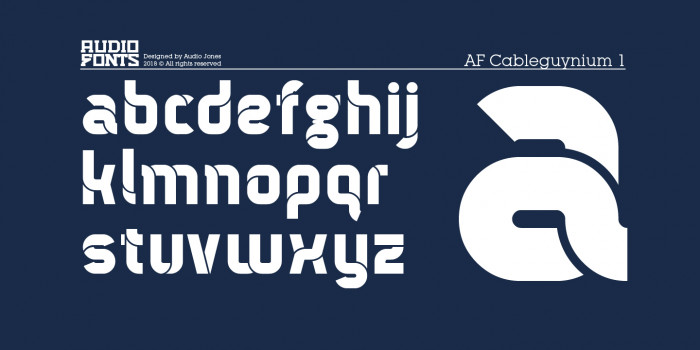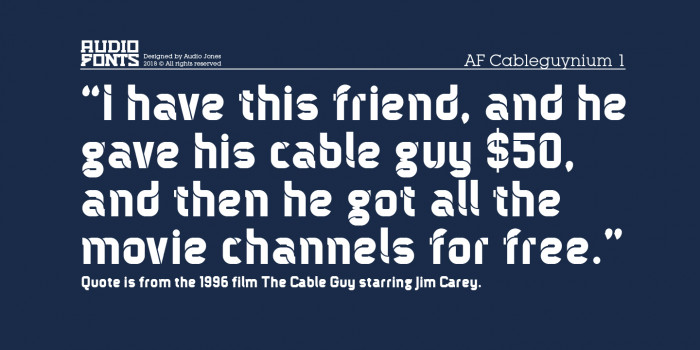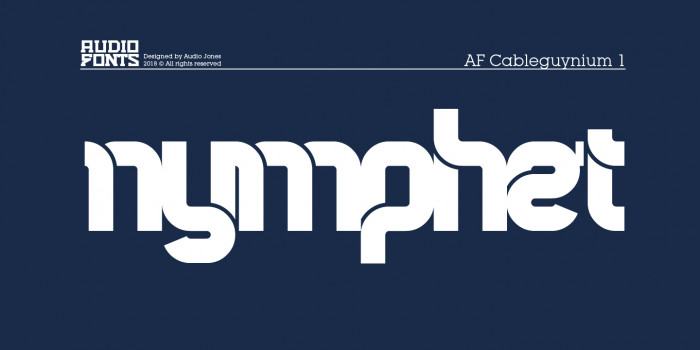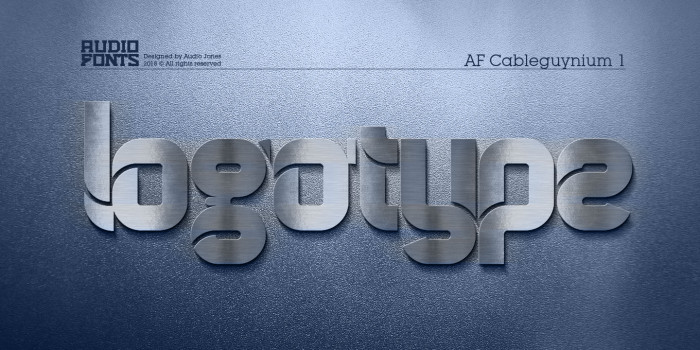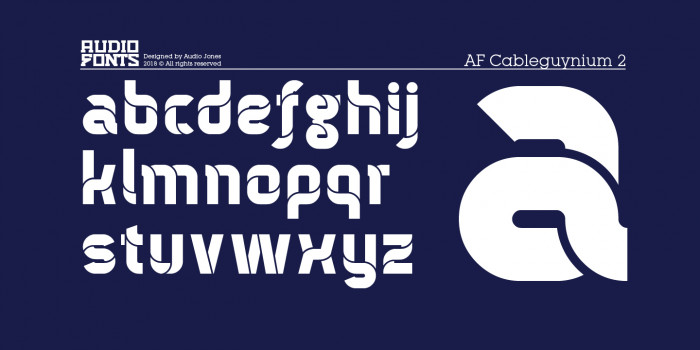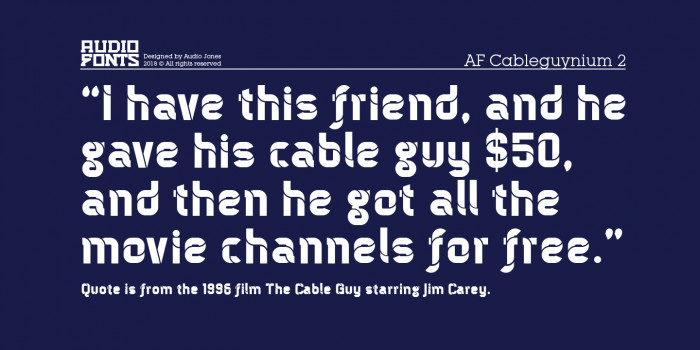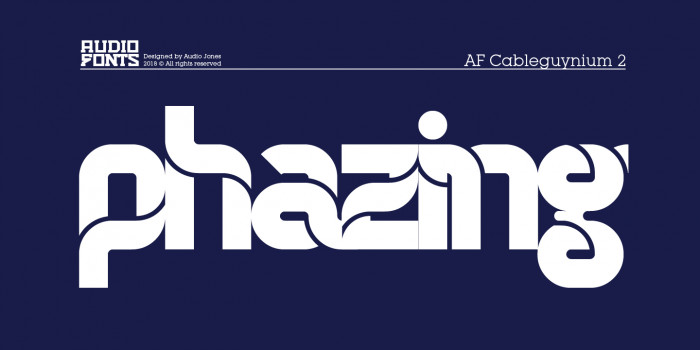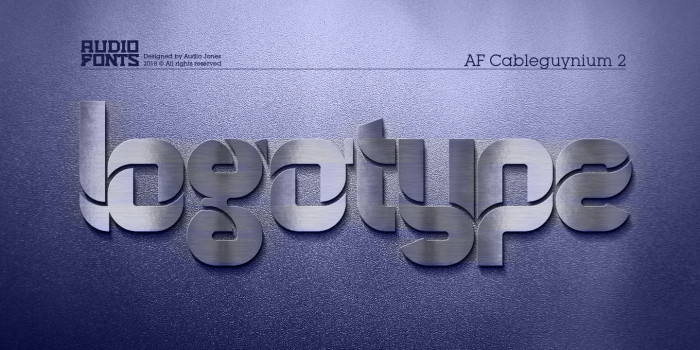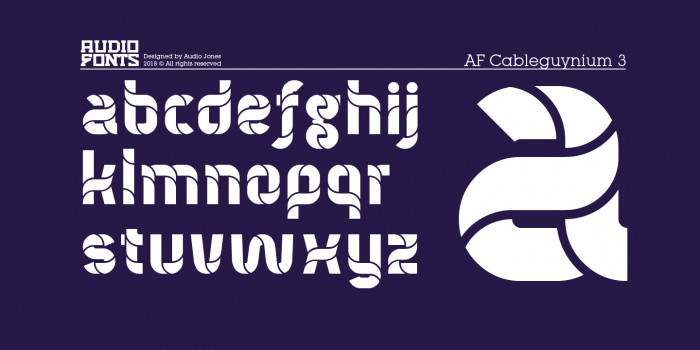
• At the end of October I decided to dive into the new Bricks 'Connect'. I started with the lowercase 's' & 'a'. Working out what the minimal size I could fontstruct it in, then expanded and condensed it from there to accomadate the rest of the glyths. You can still see these in the font above (Just before the Latin characters. As I progressed I came to love the thin white gaps, and then tried to have every glyth with some element of the curved white gap in it. Some were more successful than others. As you can see, I have included the less preferred options at the end. I've also designed some of the final glyphs in illustrator, as it was impossible to have all of them with one white line, without help from an external app.
The most difficult glyphs to create and ultimately the most satisfying once completed were the 'V' and '~'.
I liked the look of final font so much, that I decided to create a whole family. Cableguynium 0 (which has Zero cables), CableGuynium 2 (which has 1-2 cables per glyth), and CableGuynium 3 (Which has 3-4 cables).
Unusually I struggled naming this font, I have early versions saved called Flowonica, Rubber Tyre, Ice Skater and Fibropticon, ..... eventually settling on CableGuynium as it was the most memorable.
ANY CRITICISM, GOOD OR BAD IS WELCOMED.
Awesome! I love every letters here :D
Thanks and here's Cableguynium 2 (with 2-3 cables per character)
.... an here's Cableguynium 3 (with 3-5 cables per character).
Wow! Where have you been hiding for almost ten years? A well deserved top-pick, never mind the ratings!
Version 3 is my favorite.
Samples are really cool, showcasing work is something that I lack that's why I sort-of "envy" those who can.
@architaraz. There's no doubting you're the king of the curved inline font, with such beauties as AT Rosalla, AT Esrever, AT Chaperon, AT Aday, AT Raushan and the classic Argyn to name but a few of your ultra creative fonts. So I'm honoured that you like my font. :)
Woah, haven't seen this kind of font on FS for a while, love it! I love how it retains the 'modular' feel, yet looks sophisticated at the same time. Don't worry, I got your rating back :)
Damn this is very cool mate. Your sample layout design is mucha nice as well.
And like architaraz said, don't mind the votings. (though it still kind of upsets me as well each time) but this bs is systematically done to nearly half the contributions here.
One last thing.. please don't tell me you did 500+ fonts all this good!! :P
Anyway, 10/10 here, well deserved.
You would need to use OpenType Stylistic Sets to use them, but copy-paste a letter and change it a bit...
@Sed4tives Thanks for the comment. There's no way that the 400+ fonts are as good as this......... may be 399, but definately not 400. Ha ha, I'm joking. My early work really leaves a lot to be desired, although they are simple they retain high usability, as I design lots of fonts specifically for logos.
@Se7enty-Se7en. You are correct, but I much prefer to use single fonts for this particular font. There are, in my opinion, simply too many variations for it to work smoothly with OpenType, although with just a few select characters it would work well with OT features, just not the whole font. There are over 6 fonts in the whole family.... and may be even more. :)